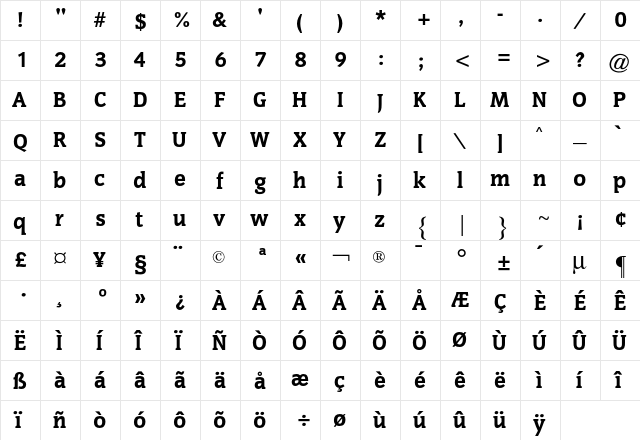
Congress CG Heavy Regular
Design Context for Congress CG Heavy Typeface
Congress CG Heavy takes a measured approach to typography — its balanced proportions and neutral character make it a reliable workhorse for both digital and print work.